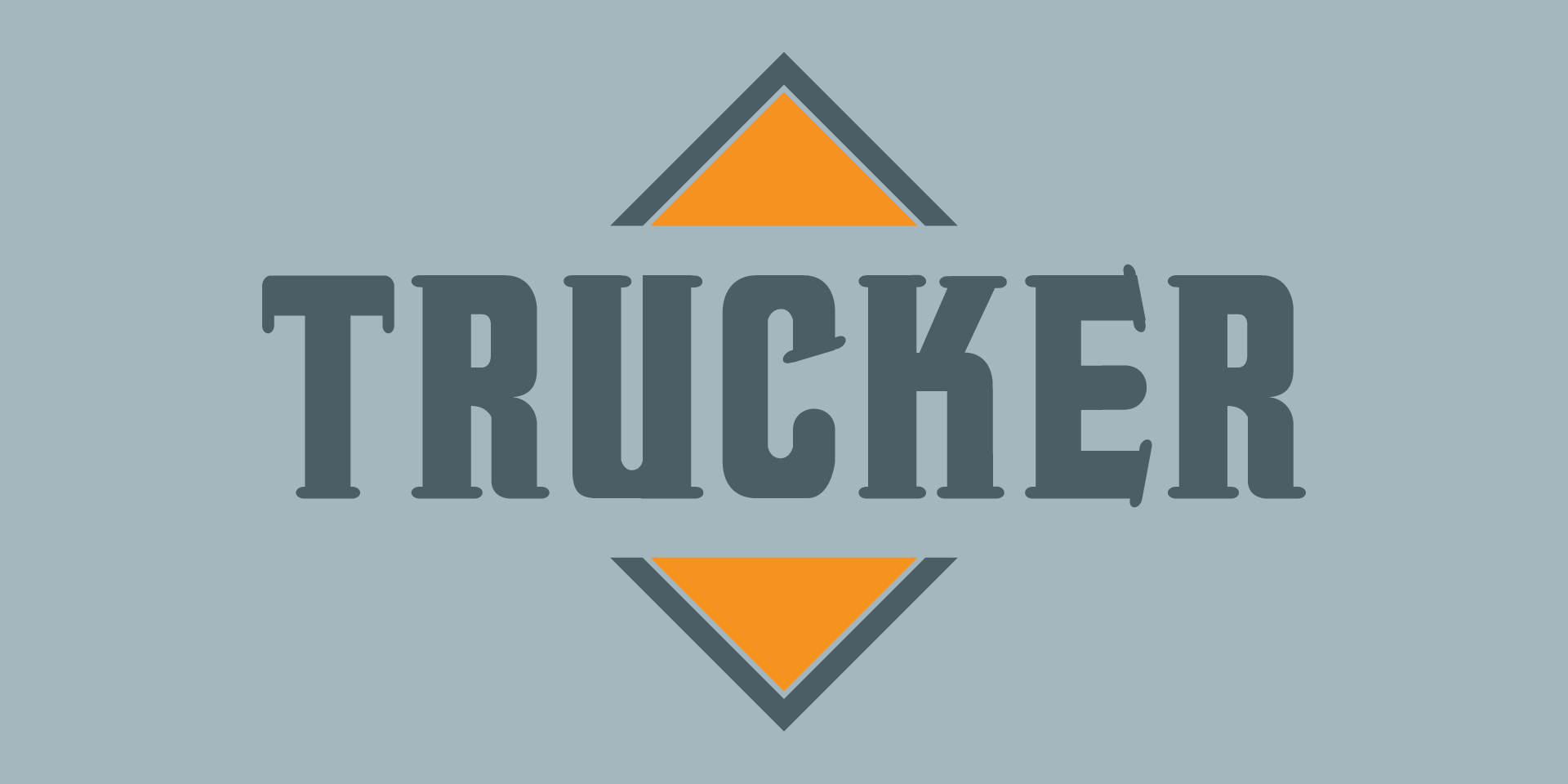
Trucker Font is perfect for trucking company branding, highway diner signage, truck stop marketing, long-haul freight services, American road culture celebrations, country music venues, blue-collar lifestyle brands, roadside truck washes, CB radio communications, trucker cap merchandise, highway rest area signage, and authentic American trucking industry communications.
This font is exciting because it embodies the rugged independence and open-road freedom of America's trucking culture, featuring boldly reliable letterforms that roll across the page with the same steady determination and honest work ethic found in professional drivers who keep America's economy moving by hauling freight across thousands of miles of interstate highways, representing the backbone of American commerce and the spirit of freedom that comes from life on the open road. The powerfully built character design reflects both the mechanical strength of eighteen-wheelers and the personal toughness required for long-haul driving, creating typography that feels both industrially reliable and authentically American. Each letter demonstrates the kind of road-tested durability and blue-collar pride that transforms ordinary text into declarations worthy of America's hardest-working drivers and transportation heroes.
The Trucker Font family includes regular and bold weights with complete character sets featuring highway-inspired numerals, road-worthy punctuation marks, and decorative elements reminiscent of truck grilles, CB radio graphics, highway signs, and classic American trucking imagery. Advanced versions may offer additional stylistic variants with enhanced road effects, alternate characters that create convoy-like connections, and trucking ornaments that celebrate the heritage of American freight transportation and highway culture.
Whether you're developing trucking industry branding, creating highway culture marketing, or designing authentic blue-collar content, Trucker Font Free Download provides the road-tested reliability and American trucking authenticity your project needs to connect with audiences who appreciate honest work, open-road freedom, and the essential role that professional drivers play in keeping America's economy rolling down the highway. This typeface transforms ordinary text into highway declarations that honor both the independence of trucking culture and the vital importance of freight transportation. The font's road-worthy character makes it essential for businesses and organizations that serve the trucking industry and highway culture. Professional drivers and transportation industry marketers will appreciate how this font brings authentic trucking tradition to their work with its genuinely road-tested and blue-collar character that keeps on trucking.